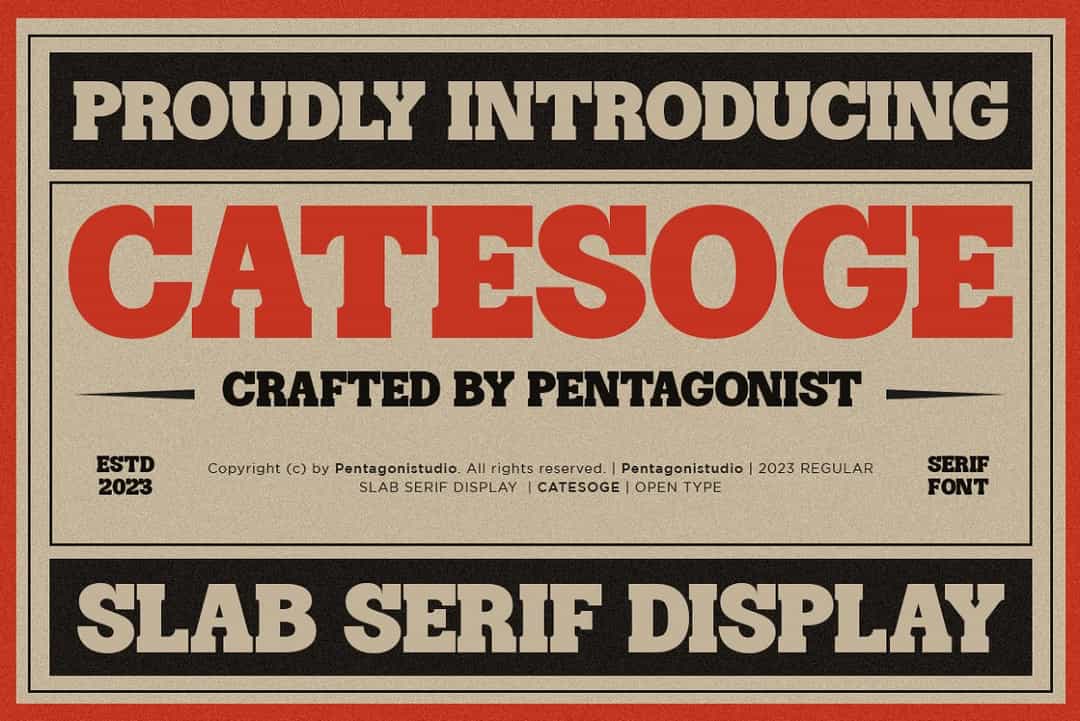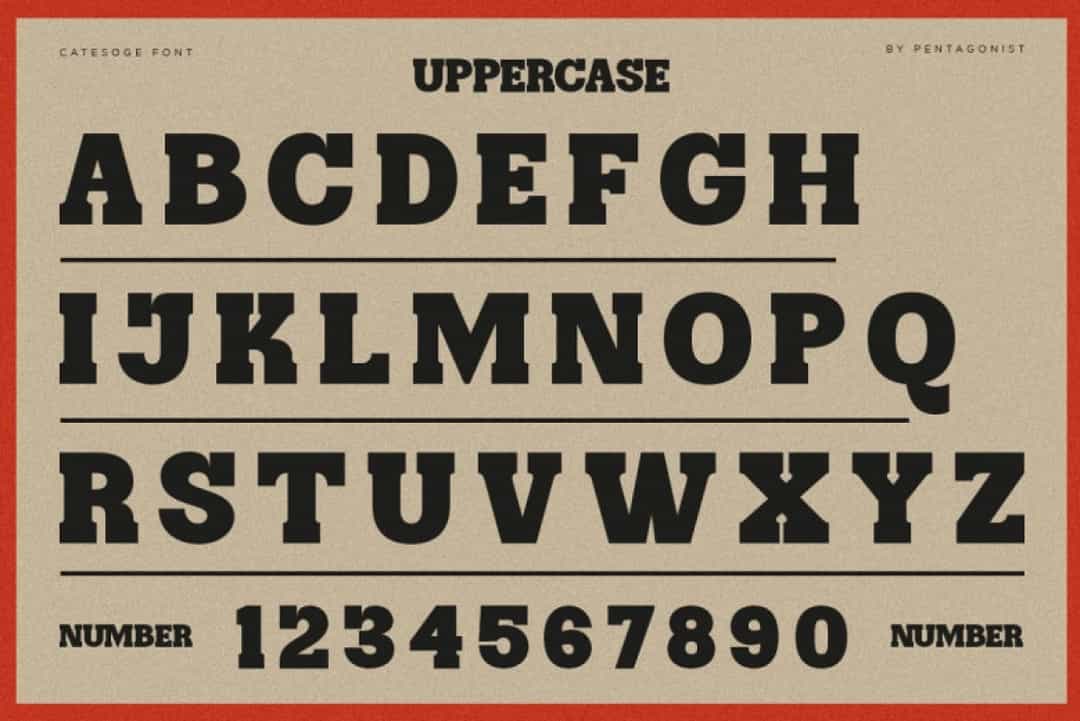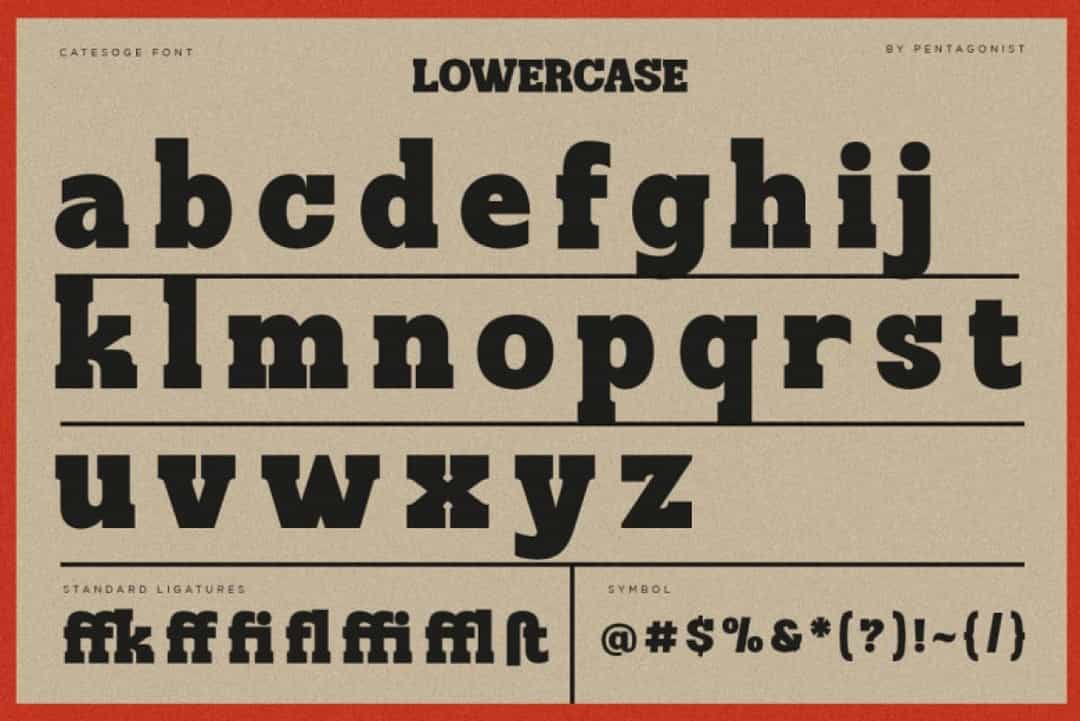
Catesoge is an eye-catching slab serif font designed to emulate vintage and retro aesthetics, and makes an elegant logo, movie, book cover design, fashion label clothing line name, magazine letters and quotes, among other applications.